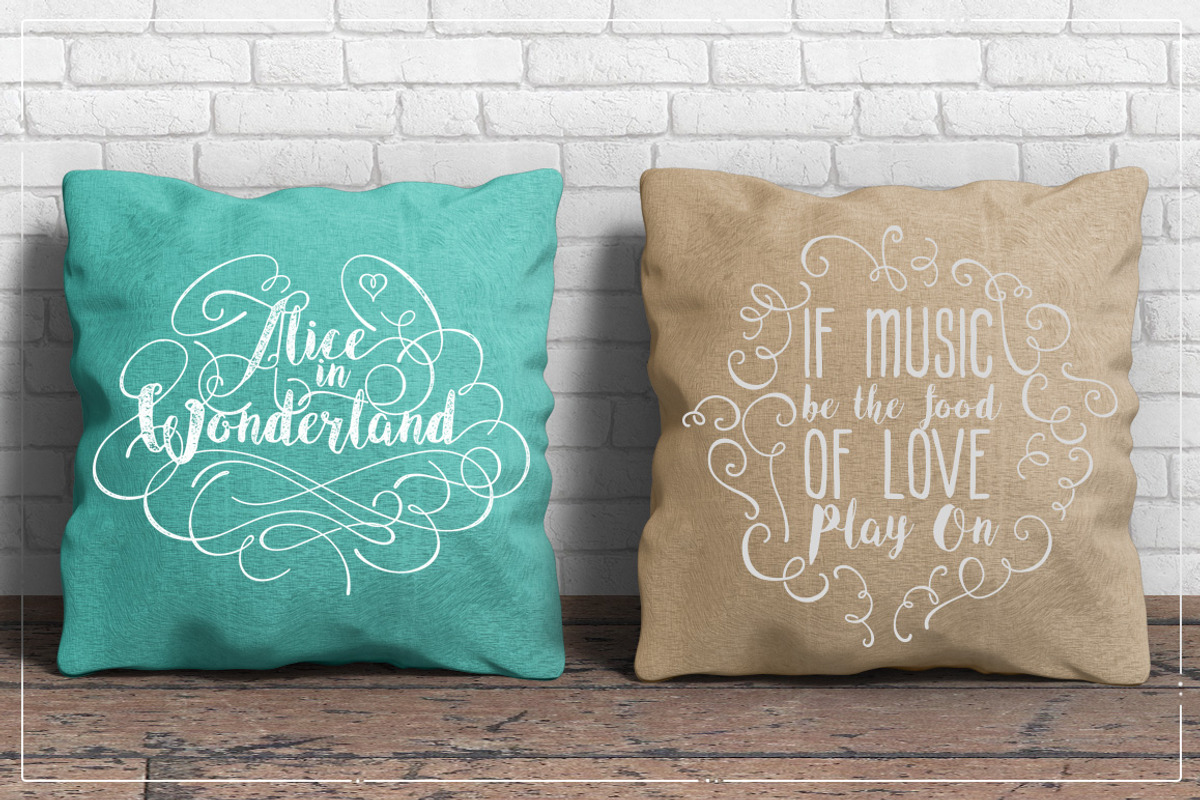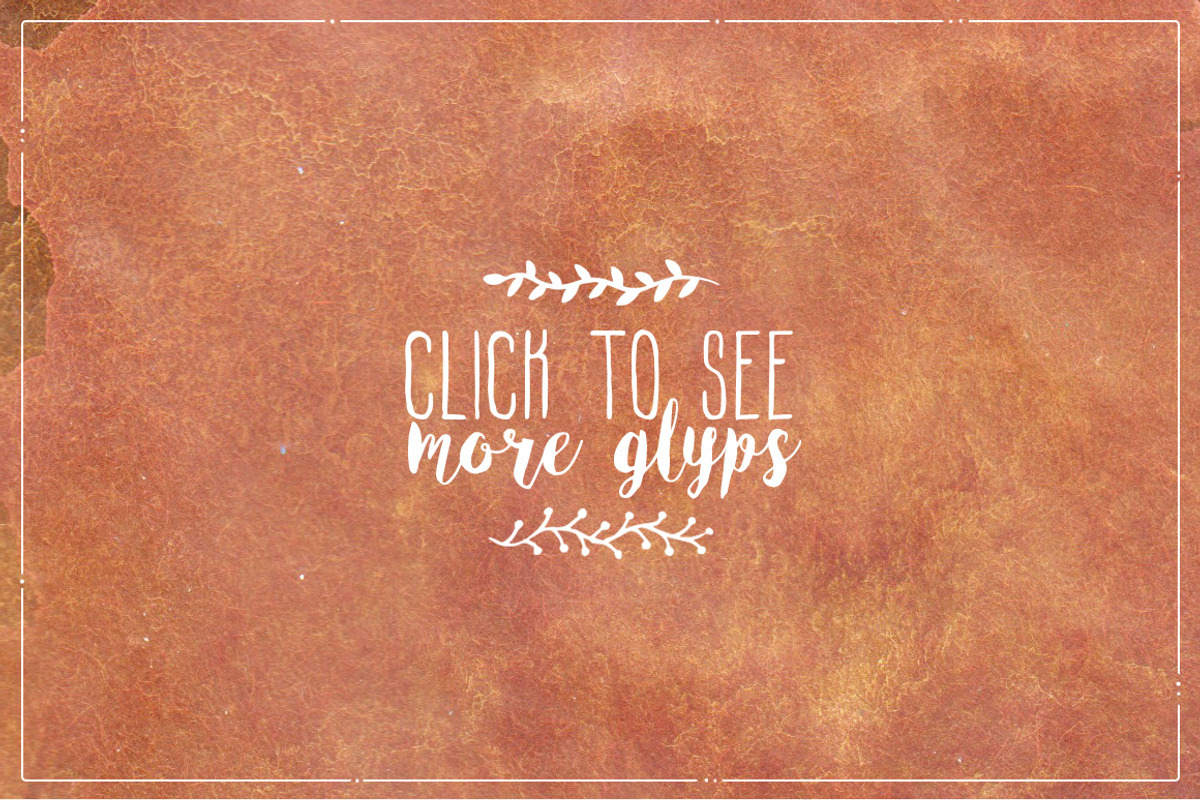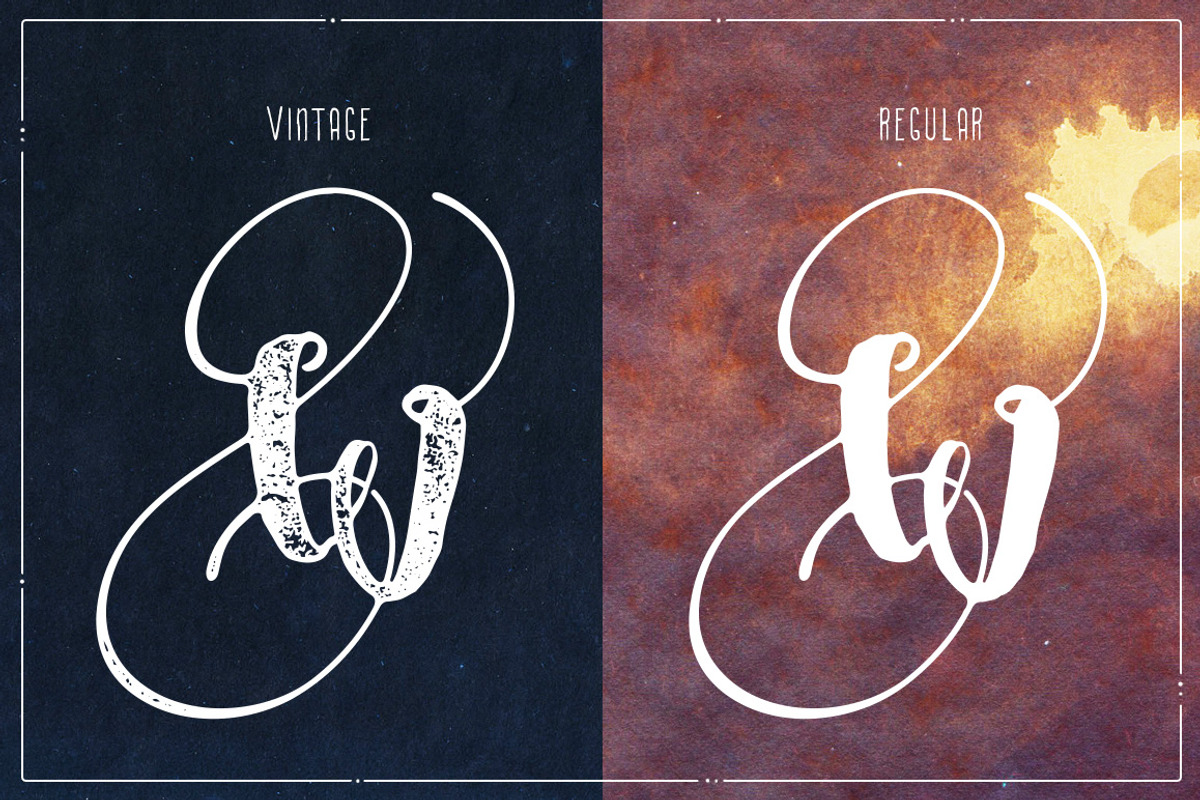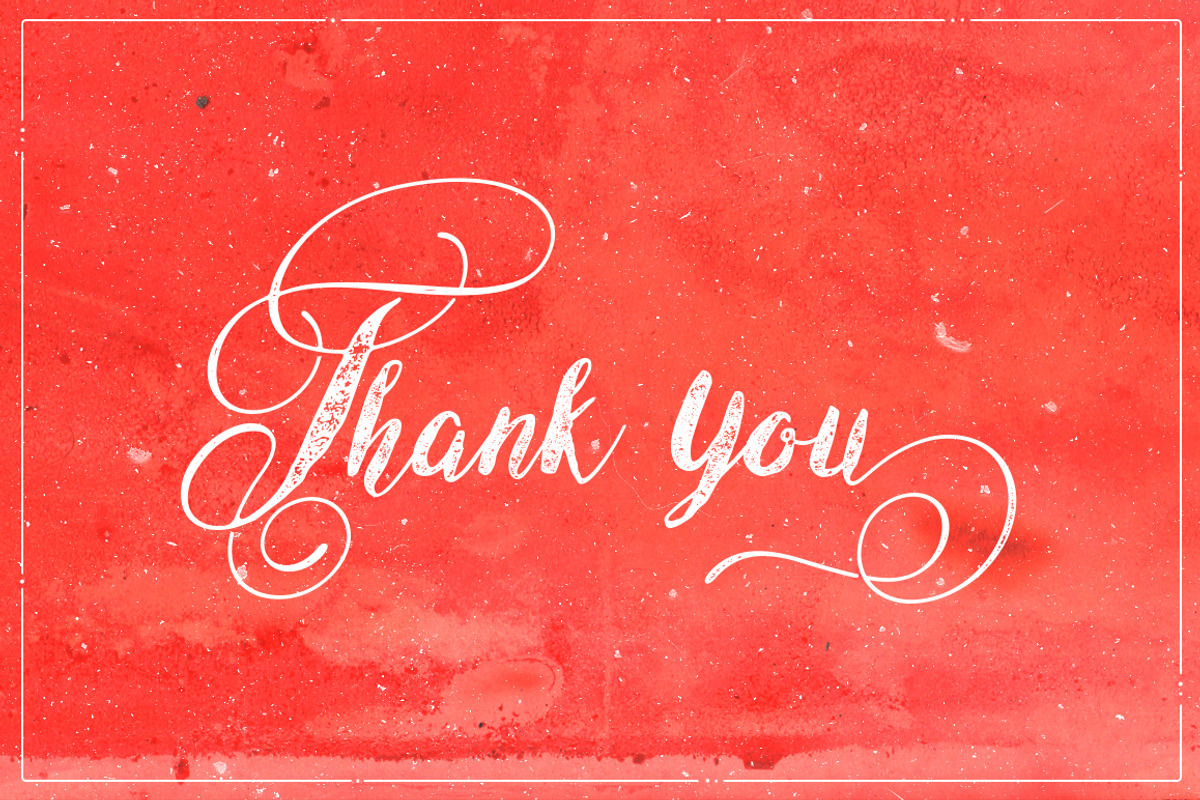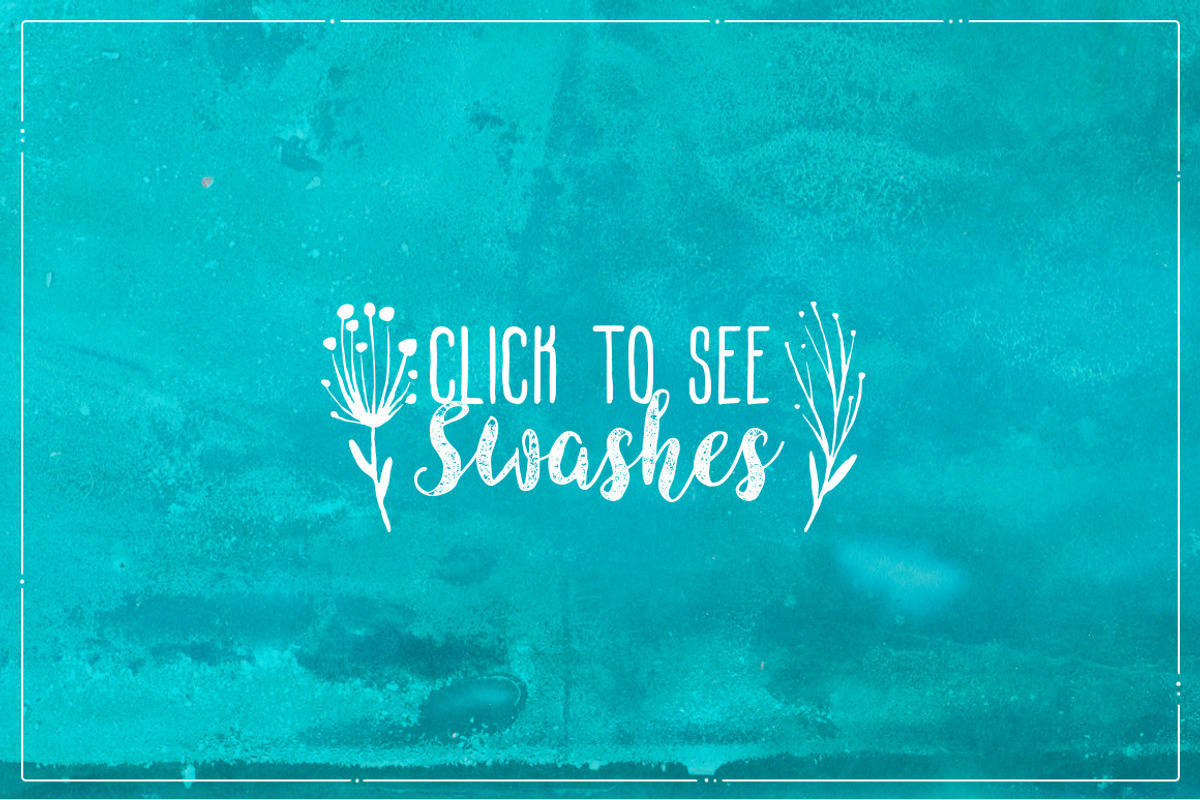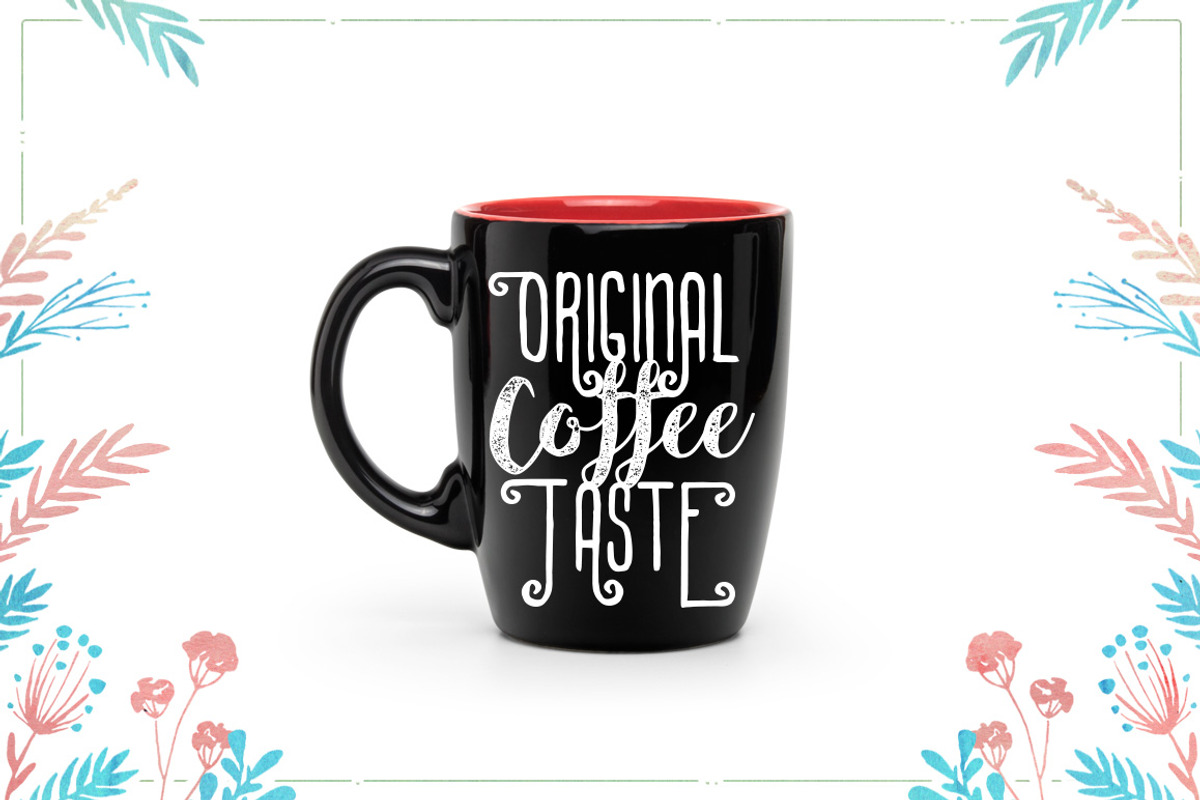
Angeline Font + SWASHES
Angeline Font + SWASHES by Burntilldead is a font selected for branding, posters, packaging, typography.
- Angeline comes with alternate upper and lowercase characters, and supports international languages.
Why Angeline Font + SWASHES is worth a look
Angeline Font + SWASHES by Burntilldead fits naturally into Branding, posters, packaging, typography.